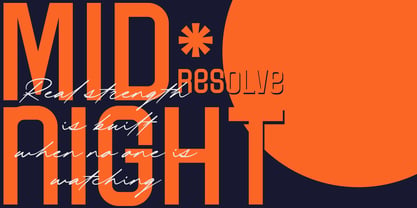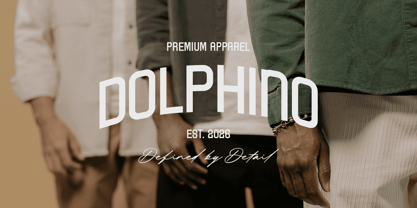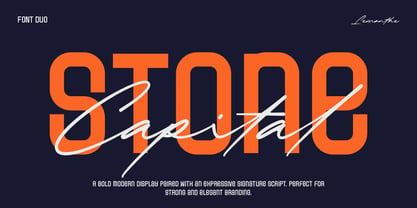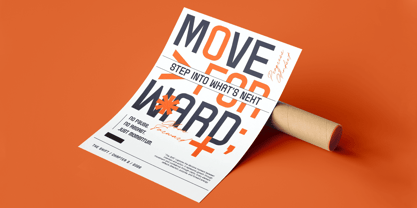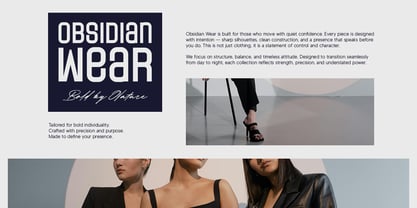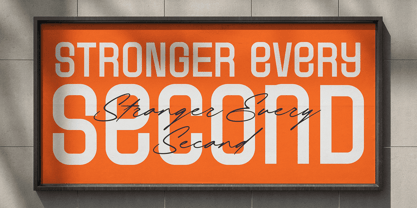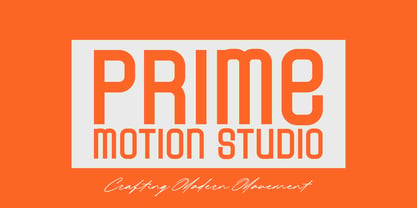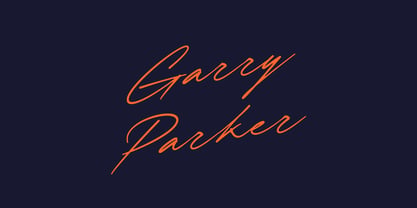
Stone Capital
Stone Capital is a font duo that pairs a modern display sans serif with a signature script in a balanced combination. It is designed to create clear visual contrast, combining a structured style with a more flowing touch, so layouts feel natural and easy to arrange. This font is suitable for branding, logos, apparel design, posters, social media content, and editorial headlines. With a consistent and flexible character, Stone Capital works well for projects that aim for a modern and clean look.